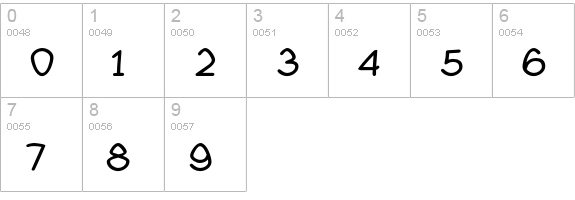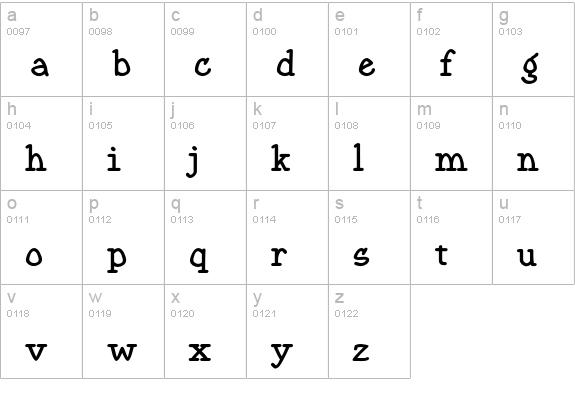
SundsvallBold is a striking and modern font that exudes confidence and sophistication. With its bold and clean lines, this font is perfect for making a statement in any design project. Whether you are creating a poster, logo, or website, SundsvallBold will ensure that your message stands out. The best part? SundsvallBold is available for free download at FontsMarket.com. This means that you can access this versatile and eye-catching font without breaking the bank. Don't miss out on the opportunity to elevate your designs with SundsvallBold - download it today and let your creativity shine!